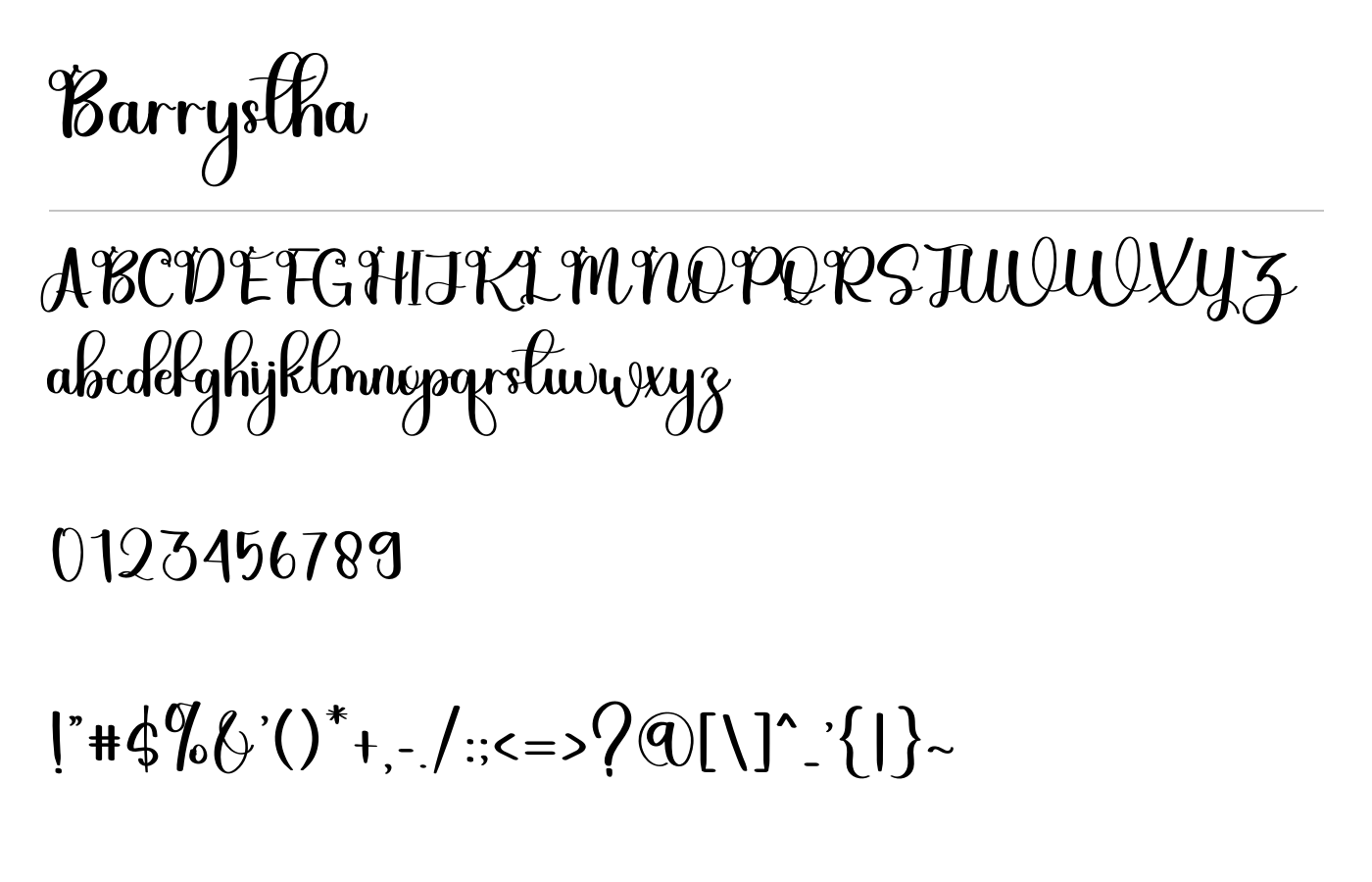
Barrystha is a charming script font with a lively, handcrafted feel, featuring elegant swashes and smooth, flowing letterforms that bring warmth and personality to any design. With its playful yet refined style, it is perfect for creative branding, invitations, and lifestyle projects where a touch of friendliness and sophistication is desired. This font works best in headlines and decorative uses, adding a unique, artistic flair to your typography.
Barrystha Font
About Barrystha Font